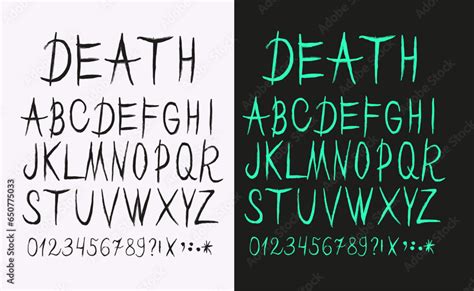
Neo Sigilism Font: Unlocking Mystical Design
Hey design enthusiasts! Today, we’re diving deep into something pretty cool and a little bit mysterious: the Neo Sigilism font . If you’re looking to add a touch of ancient wisdom, esoteric charm, or just a really unique vibe to your projects, then you’ve come to the right place, guys. This font isn’t your average typeface; it’s a gateway to a world of symbolism and hidden meanings. We’re going to explore what makes Neo Sigilism so special, where you might have seen it popping up, and how you can start using it to make your designs truly stand out. So, buckle up, because we’re about to embark on a journey into the fascinating realm of Neo Sigilism!
What Exactly is Neo Sigilism Font?
Alright, so what is this Neo Sigilism font , you ask? Essentially, it’s a modern interpretation of sigil magic, blended with typography. Think of sigils as symbols created for a specific magical intent. Throughout history, people have used sigils for everything from protection and prosperity to invoking specific energies. Now, imagine taking the essence of those ancient, powerful symbols and translating them into a font that you can easily use in your digital designs. That’s pretty much what Neo Sigilism font offers! It draws inspiration from a variety of sources, including occult traditions, mystical symbols, and even ancient alphabets, but it gives them a contemporary twist. The result is a collection of glyphs that feel both timeless and incredibly modern. Each character in a Neo Sigilism font often carries a sense of depth and mystery, making it perfect for projects that need to convey something more profound than just words. It’s not just about the letters; it’s about the feeling they evoke. You’ll often find that these fonts feature intricate details, sharp angles, and flowing lines that mimic the complexity of hand-drawn sigils. The aesthetic is usually quite bold and striking, designed to catch the eye and spark curiosity. It’s a fantastic choice for graphic designers, tattoo artists, spiritual practitioners, or anyone who wants to inject a sense of the mystical into their creative work. The term ‘Neo’ itself suggests a ‘new’ or ‘revived’ form, meaning this isn’t just a direct copy of old symbols, but a creative reimagining for today’s design landscape. This approach allows for a unique blend of the old and the new, making the font versatile for a range of applications.
The Allure of Symbolism in Design
Let’s talk about why symbolism is such a big deal in design, and how the Neo Sigilism font taps into that power. Humans are visual creatures, right? We’re wired to understand and connect with symbols on a deep, almost subconscious level. Think about it: a stop sign, a heart shape, a company logo – these all communicate complex ideas or emotions instantly, without needing a single word. Symbols have been used for millennia across cultures to represent beliefs, deities, concepts, and intentions. The Neo Sigilism font takes this ancient power and makes it accessible for modern designers. It’s not just about using a pretty font; it’s about imbuing your designs with meaning. When you use a Neo Sigilism font, you’re not just typing out text; you’re potentially activating a layer of symbolic resonance within your work. This can be incredibly effective for branding, especially for businesses that want to convey a sense of mystique, ancient knowledge, or a unique spiritual connection. Imagine a brand that wants to evoke trust and longevity – using a font that subtly hints at ancient wisdom could be a powerful tool. It also works wonders for personal projects, like journals, invitations for themed events, or even tattoo designs. The allure lies in the ability of these symbols to evoke specific feelings or associations. They can create an atmosphere, suggest a narrative, or even serve as a subtle form of communication for those ‘in the know’. The careful crafting of each glyph in a Neo Sigilism font is intentional, often designed to hold specific energetic properties or associations, mirroring the practice of creating actual sigils. This means that when you choose to incorporate this font, you’re not just selecting a typeface; you’re selecting a visual language that speaks volumes beyond the literal meaning of the words. It’s about tapping into a universal human fascination with symbols and their power to convey deeper truths and evoke strong emotional responses. The impact of well-chosen symbolism in design cannot be overstated; it elevates a piece from mere decoration to a meaningful artifact.
Where to Find and Use Neo Sigilism Fonts
So, you’re probably wondering, ‘Where can I get my hands on these awesome Neo Sigilism fonts and what kind of projects are they good for?’ Great question, guys! Finding these fonts is becoming easier as digital design resources expand. You can often find them on various font marketplaces, both free and paid. Websites like Creative Market, MyFonts, or even searching on platforms like Etsy can yield some fantastic results. Some independent font designers also create and sell unique Neo Sigilism-inspired typefaces directly through their own portfolios or social media. When looking, keep an eye out for keywords like ‘occult font,’ ‘sigil font,’ ‘mystical typeface,’ or ‘esoteric font’ alongside ‘Neo Sigilism.’ As for usage, the possibilities are pretty wild! Branding and Logos: If you’re creating a brand identity for a business in the spiritual, metaphysical, wellness, or even a niche artistic space, Neo Sigilism fonts can be a game-changer. A unique logo using this font can immediately communicate a sense of depth, ancient wisdom, or a magical connection, setting you apart from competitors. Book Covers and Publishing: For authors writing in genres like fantasy, horror, occult studies, or even historical fiction, these fonts are perfect for creating eye-catching book covers that hint at the themes within. Imagine a novel about ancient rituals – a Neo Sigilism font on the cover would be spot on! Tattoo Design: This is a huge one! Many tattoo artists use Neo Sigilism fonts as a base for custom sigil tattoos. The intricate nature of the glyphs lends itself beautifully to the permanence and artistry of tattooing, allowing clients to get a symbol that holds personal meaning or desired energy. Website and App Design: For niche websites or apps focused on spirituality, astrology, magic, or even unique gaming experiences, these fonts can create an immersive and thematic user interface. Art and Craft Projects: If you’re into making art, scrapbooking, or even designing custom merchandise, incorporating Neo Sigilism fonts can add a unique, handcrafted, and mystical feel. Invitations and Stationery: Think about unique wedding invitations for a gothic-themed wedding, or party invitations for a mystical gathering. These fonts can set a unique tone right from the start. Remember, when choosing a Neo Sigilism font, always check the license to ensure it’s suitable for your intended commercial or personal use. Also, consider readability – while these fonts are often visually stunning, some can be complex, so use them strategically where legibility isn’t the absolute top priority, or pair them with simpler fonts for body text. Experimentation is key here, so have fun exploring the unique aesthetic this font style offers!
Crafting Your Message with Neo Sigilism
Now that we’ve talked about what Neo Sigilism font is and where to find it, let’s get into the fun part: how to actually use it to craft your message. This is where the magic really happens, guys! When you’re working with a Neo Sigilism font , you’re not just selecting letters; you’re choosing symbols that carry weight and intention. It’s like speaking a secret language, and your design is the scroll. Intentionality is Key: Just like with traditional sigil creation, think about the message you want to convey. Is it power? Protection? Creativity? Transformation? Choose words and phrases that align with that intention. The font itself will amplify that energy. For example, if you’re designing a poster for a meditation retreat, using words like ‘peace,’ ‘clarity,’ or ‘harmony’ in a Neo Sigilism font can create a powerful, resonant effect. Pairing is Caring: Because Neo Sigilism fonts can be quite elaborate and sometimes challenging to read in large blocks of text, smart pairing is essential. Use them for headlines, key phrases, or decorative elements. For body text or longer passages, opt for a simpler, more legible sans-serif or serif font. This contrast will make your Neo Sigilism elements pop even more and ensure your overall design is easy to digest. Think of it like this: the Neo Sigilism font is the dazzling jewelry, and the secondary font is the elegant outfit that makes the jewelry shine. Hierarchy and Emphasis: Use the unique characters and bold nature of Neo Sigilism fonts to create visual hierarchy. A prominent title in a striking Neo Sigilism font will draw the viewer in, guiding their eye through the rest of your design. You can also use specific glyphs within the font as decorative accents or visual separators, adding texture and intrigue. Context Matters: Consider the overall context of your project. A Neo Sigilism font might be perfect for a mystical themed event invitation but might be overkill for a corporate annual report. Ensure the font choice aligns with the brand’s personality and the target audience’s expectations. For instance, a gaming company aiming for a dark fantasy aesthetic would embrace this font, while a children’s toy brand probably wouldn’t. Beyond the Alphabet: Some Neo Sigilism fonts come with extra symbols, glyphs, or decorative elements that aren’t part of the standard alphabet. Explore these! They can be used as background patterns, unique icons, or embellishments to add even more depth and symbolic meaning to your work. Don’t be afraid to experiment with different characters, rotate them, or even layer them to create unique visual effects. Test for Legibility: Before finalizing your design, always test how legible your Neo Sigilism text is. Read it aloud. Does it flow well? Can someone unfamiliar with the font still understand the basic message? Sometimes, what looks incredibly cool might hinder communication, so a balance is crucial. Ultimately, crafting your message with Neo Sigilism font is about harnessing the power of symbolism and design to create something truly impactful and memorable. It’s about telling a story that goes beyond the words themselves, inviting your audience into a world of deeper meaning and visual fascination. So go forth, experiment, and let the mystical power of Neo Sigilism elevate your next design project!
The Future of Mystical Typography
As we wrap up our deep dive into the Neo Sigilism font , it’s exciting to think about where this trend in mystical and symbolic typography is headed. We’re seeing a growing appreciation for design that carries more than just aesthetic appeal; people are looking for meaning, connection, and a touch of the extraordinary in their everyday digital experiences. Neo Sigilism is just one facet of this broader movement. We’re likely to see even more fonts that draw inspiration from ancient scripts, esoteric symbols, alchemical diagrams, and even celestial patterns. The ‘Neo’ aspect will continue to evolve, with designers pushing the boundaries of how these traditional forms can be reinterpreted for contemporary use. Expect to see more fusion fonts, blending elements of Neo Sigilism with other styles like brutalist, art deco, or even futuristic aesthetics, creating truly unique and unexpected typographic expressions. AI and Algorithmic Design: The rise of AI in design could also play a role. Imagine AI tools that can generate complex, personalized sigil-like patterns or even entire fonts based on user-defined intentions or aesthetic parameters. This could democratize the creation of highly symbolic and meaningful typography, making it accessible to even more people. Increased Customization and Interactivity: We might also see a move towards more customizable and interactive typographic experiences. Think of fonts where individual glyphs can be altered, animated, or even respond to user input, adding another layer of engagement and mystique. Ethical Considerations: As these fonts become more prevalent, there might also be a growing conversation around the ethical use of symbolic typography, particularly when it draws from sacred or culturally sensitive traditions. Designers will need to be mindful of appropriation and ensure they are using these powerful visual languages respectfully. The demand for authenticity and depth in design is only going to grow, and fonts like Neo Sigilism are perfectly positioned to meet that need. They offer a way to connect with something ancient and profound in a modern, digital world. So, whether you’re a seasoned graphic designer or just starting out, exploring the world of Neo Sigilism and similar mystical typography is a fantastic way to expand your creative toolkit and create designs that truly resonate. The future looks beautifully intricate, deeply meaningful, and undeniably magical. Keep your eyes peeled, because the world of typography is always evolving, and the mystical is definitely having its moment!